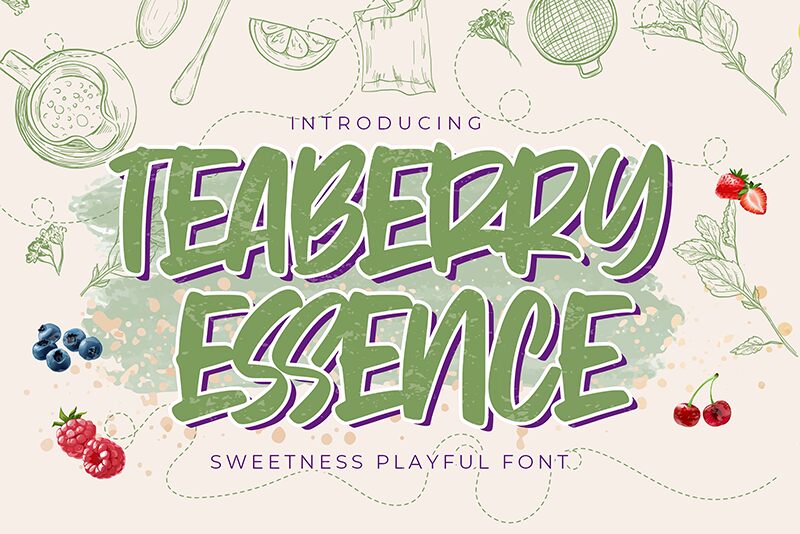
Teaberry Essence
Discover the delightful charm of Teaberry Essence, a font that brings a touch of whimsy to any creative endeavor. Designed by the innovative Gassstype, this playful brush font embodies a blend of spontaneity and artistry, creating an authentic display that resonates with joyous energy. Crafted with precision from quick, casual strokes in Procreate before being refined into sleek vectors, Teaberry Essence captures the essence of handwritten allure.
With its sweet and unique characteristics, this font exudes a natural look that makes it stand out. Perfect for a range of projects—from eye-catching branding to heartfelt quotes—its all-caps styling adds an extra layer of personality to your designs. Plus, unlock even more creative potential by exploring its OpenType ligatures feature. Whether it's for logo design or product packaging, Teaberry Essence is poised to infuse your project with its enchanting and playful spirit.